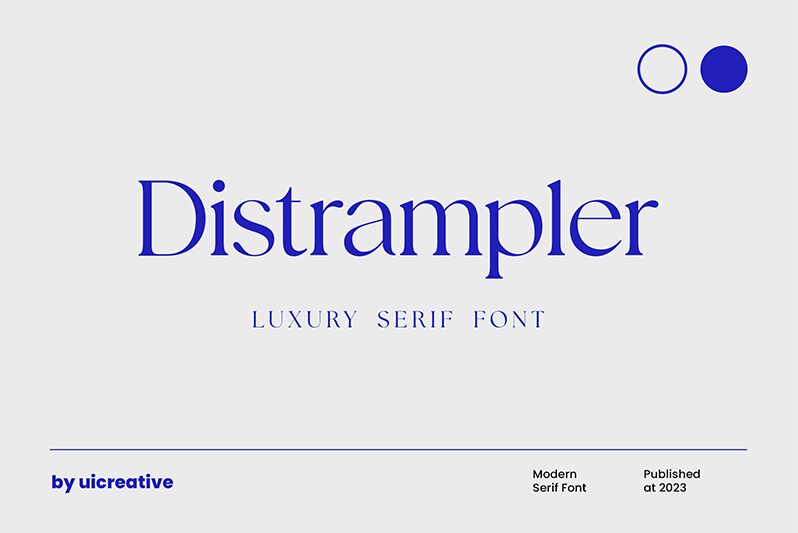
Distrampler
Distrampler, crafted by UI Creative, is a serif font that exudes timeless elegance and sophistication. The meticulously designed serifs add a touch of classic charm, while the overall balanced proportions provide a modern twist. Its refined strokes and subtle curves create an aesthetic appeal that is both graceful and versatile.
This font's unique character makes it an excellent choice for high-end branding, editorial designs, or any project that requires a touch of refinement. Whether used in print or digital media, Distrampler's distinctive style ensures readability without compromising on its artistic flair. Its ability to seamlessly blend traditional elements with contemporary design makes it a perfect fit for fashion magazines, luxury products, and elegant invitations.